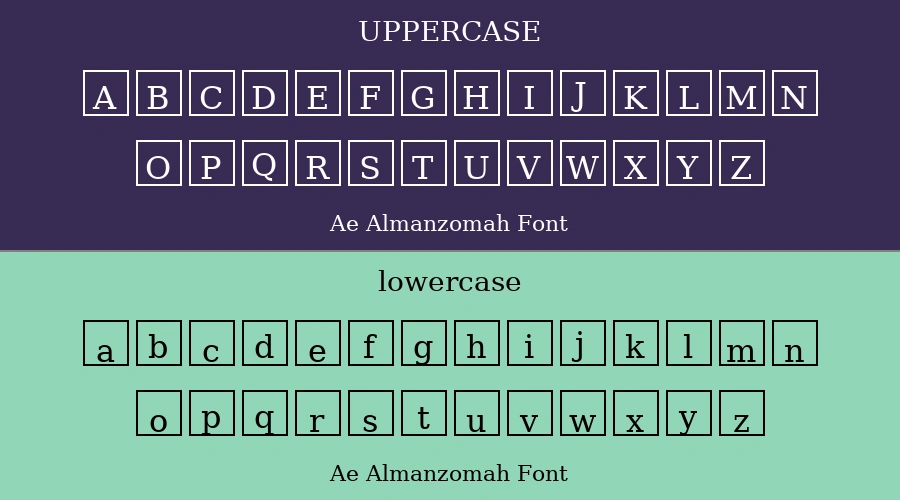
About Ae Almanzomah Font
Ae Almanzomah Font represents a sophisticated approach to type design, balancing decorative elements with precision. Perfect for product naming, this font family showcases impressive precision and design innovation throughout its character set. Designers appreciate its versatility and reliability.
Designers will appreciate nuanced touches including fluid connections and superior letters, adding sophistication to any project. These features become apparent in book chapters, where footnote clarity matters most. The careful treatment of letterfit and educational suitability ensures optimal performance.